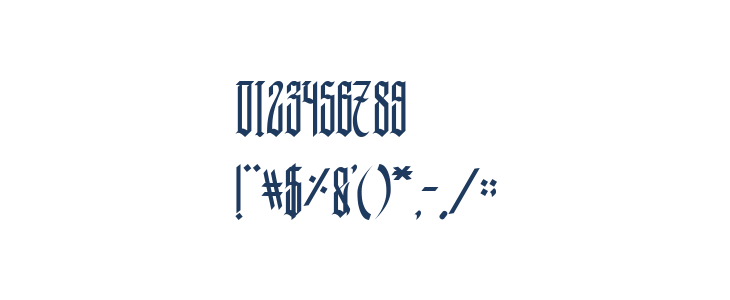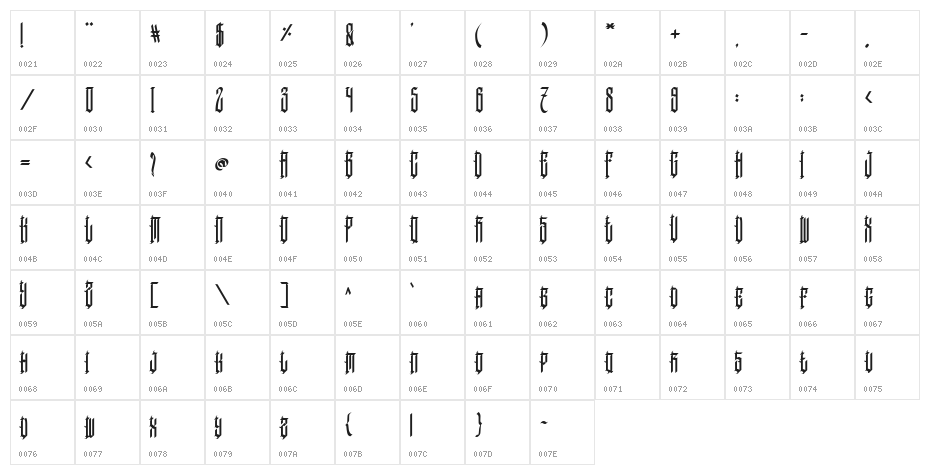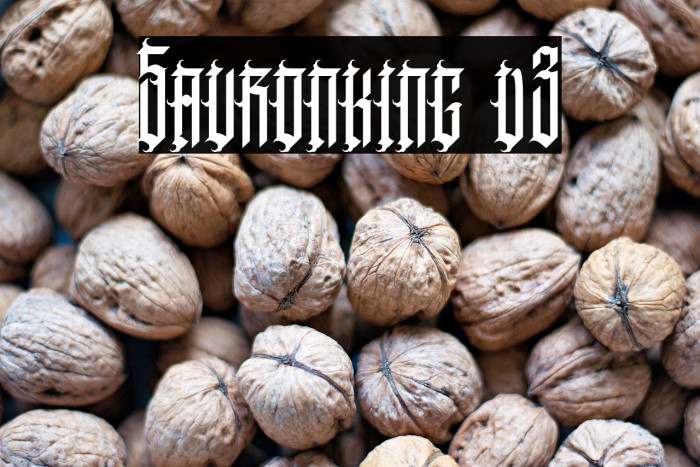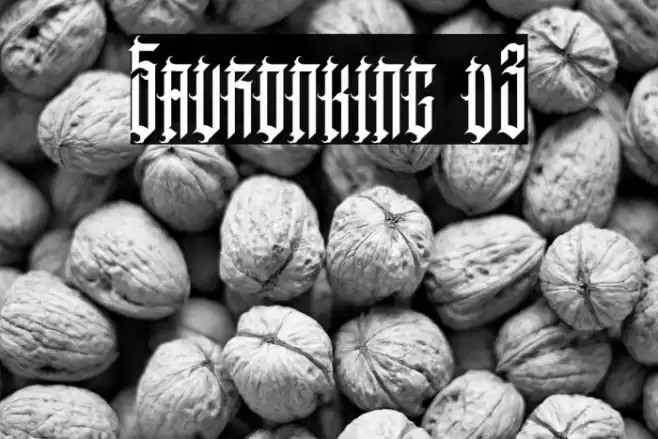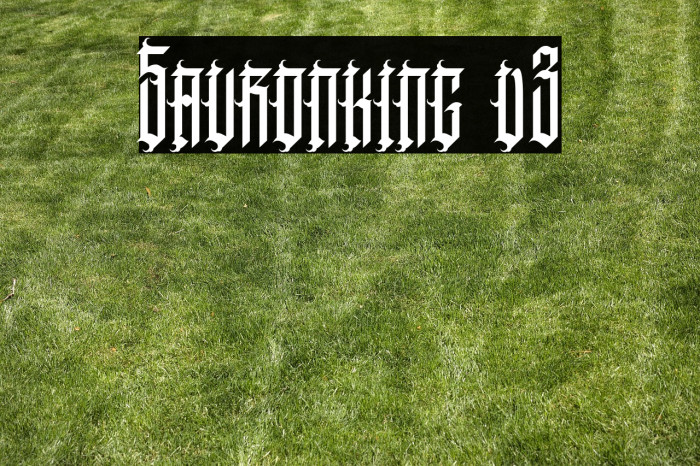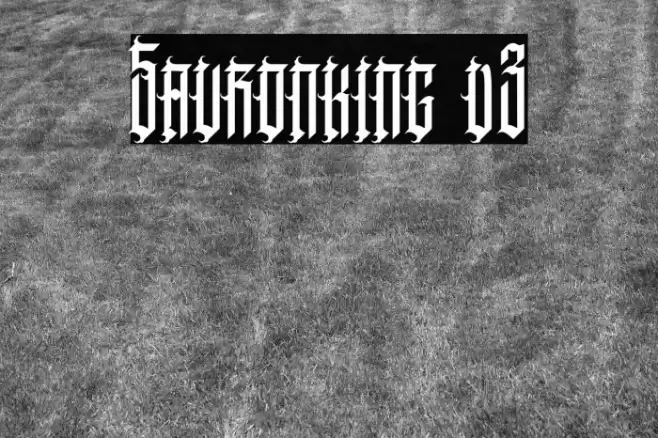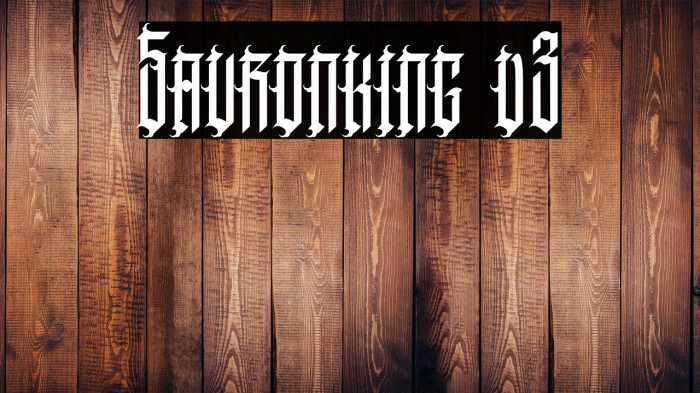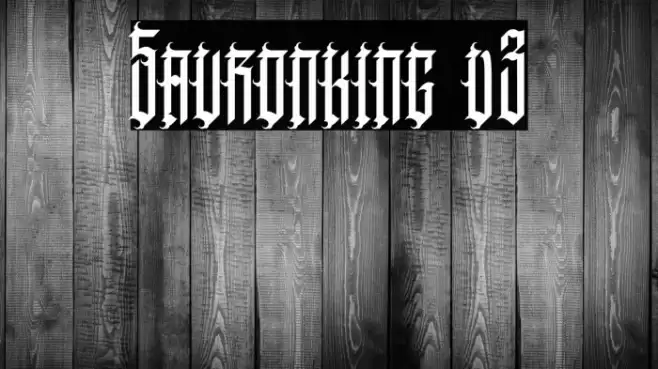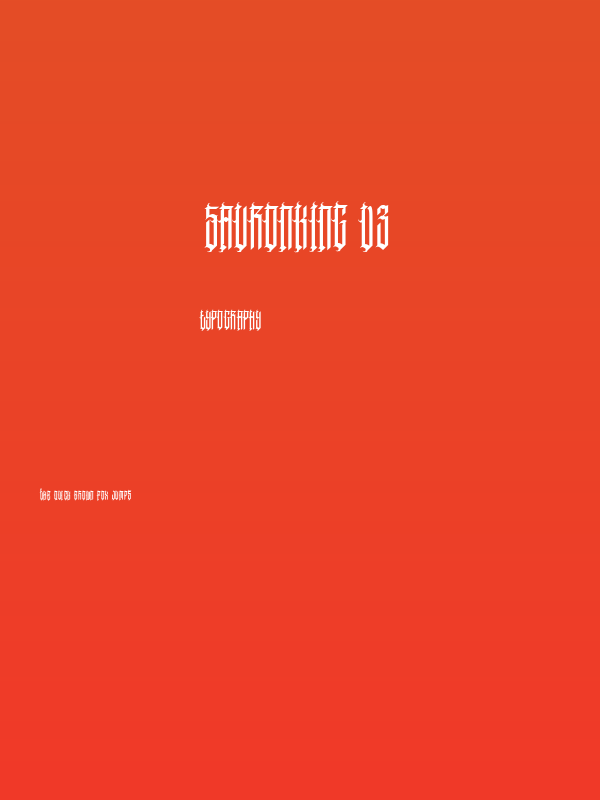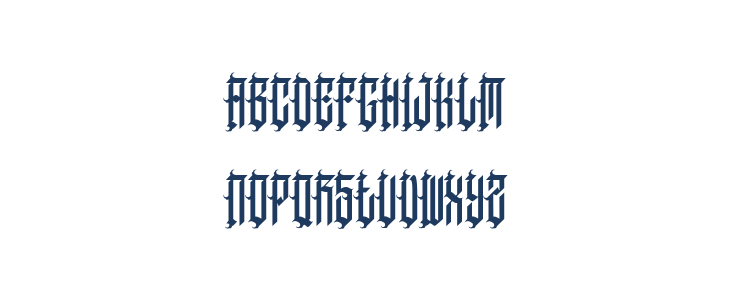
Sauronking v3 Font
Sauronking v3 Description
This font exhibits a striking and bold blackletter style, characterized by its sharp, angular lines and intricate detailing. The uppercase and lowercase letters maintain a consistent gothic aesthetic, with elongated vertical strokes and decorative serifs that evoke a medieval manuscript feel. The numerals and special characters are designed to match the ornate style, ensuring a cohesive look across all text elements. This font's dramatic appearance makes it ideal for projects that require a historical or fantasy theme, adding a sense of grandeur and tradition.
| Proposed Projects | Ideal for fantasy book covers, historical event posters, themed invitations, and branding for medieval-themed businesses. |